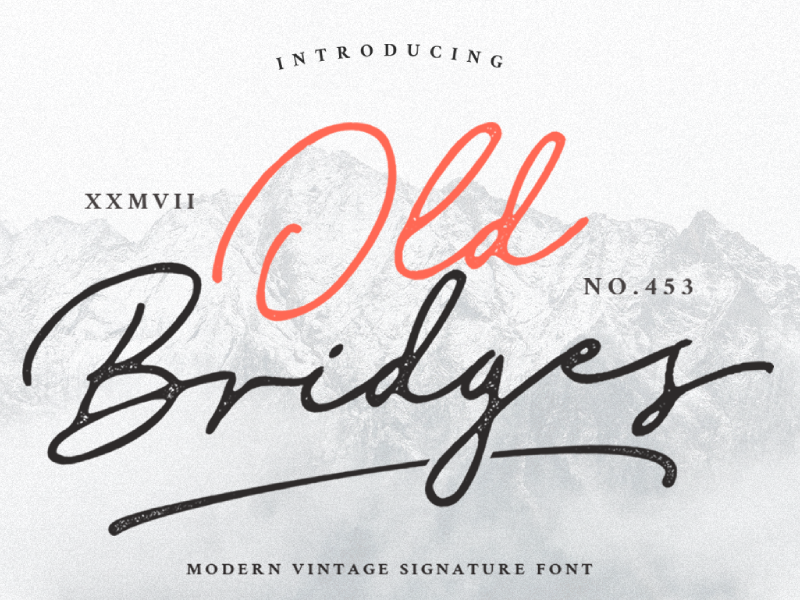
Old Bridges - Vintage Signature Font
Old Bridges Inspired by Modern Vintage Signature font with 3 styles (Regular, Stamp, Rough). now available at @creativemarket